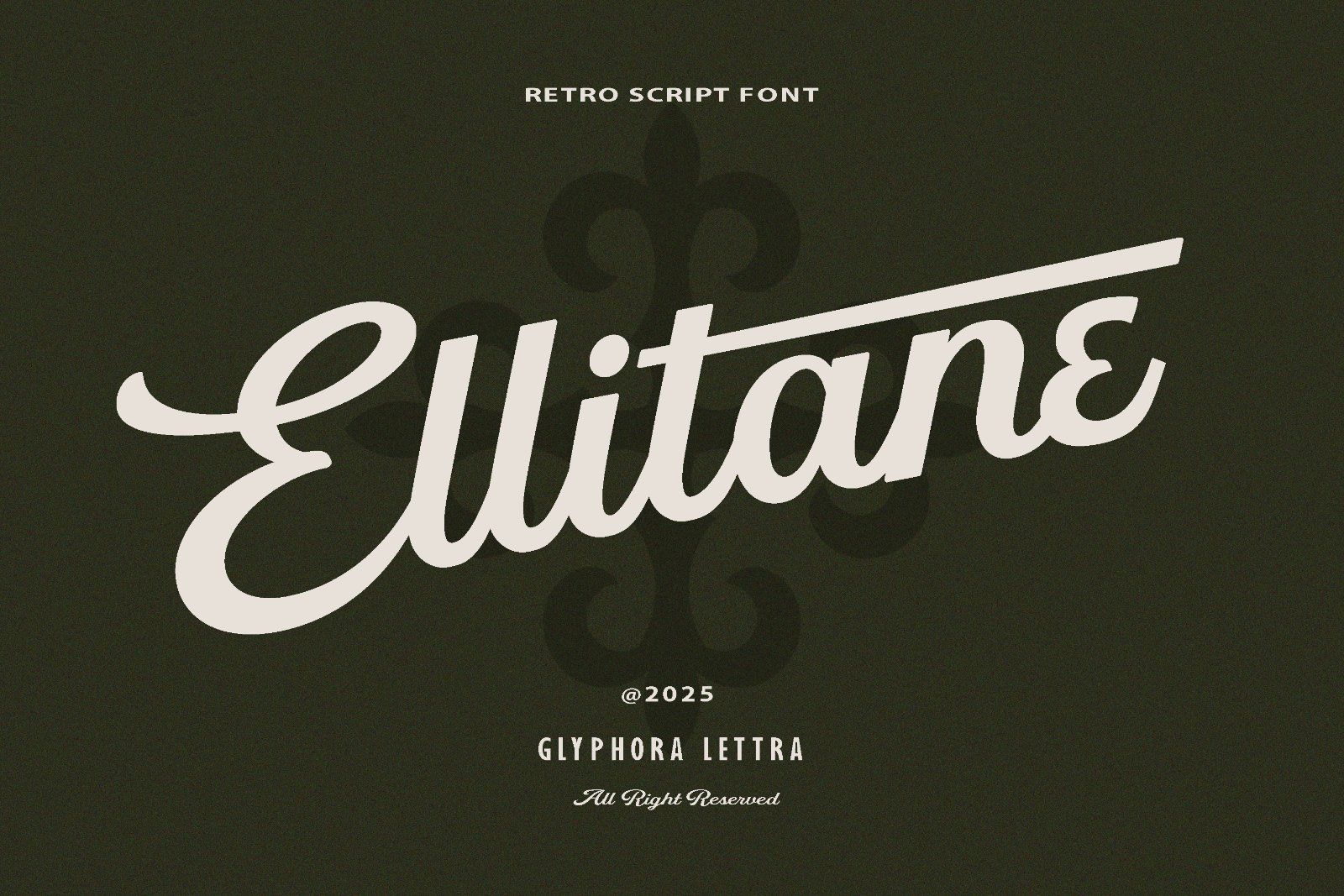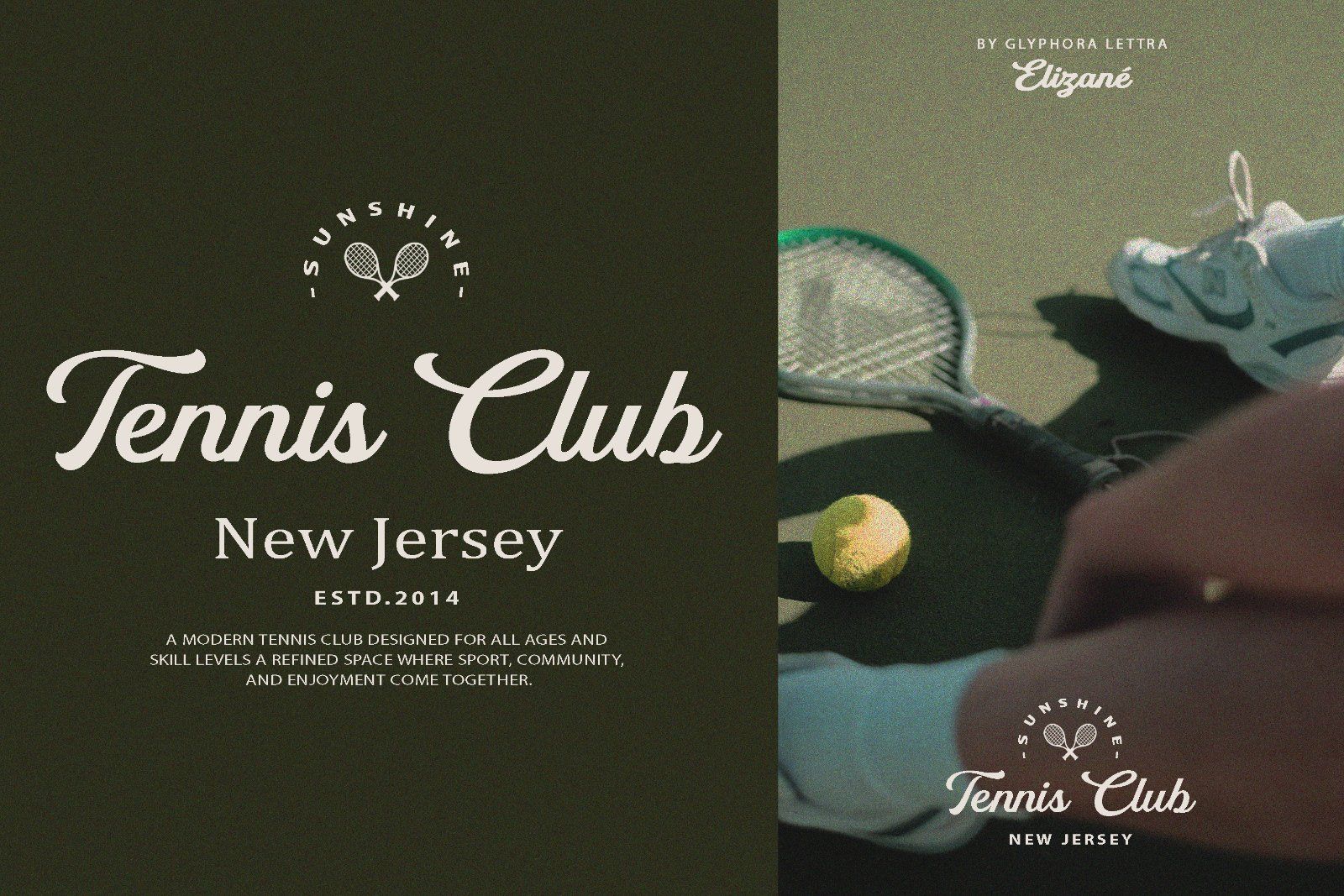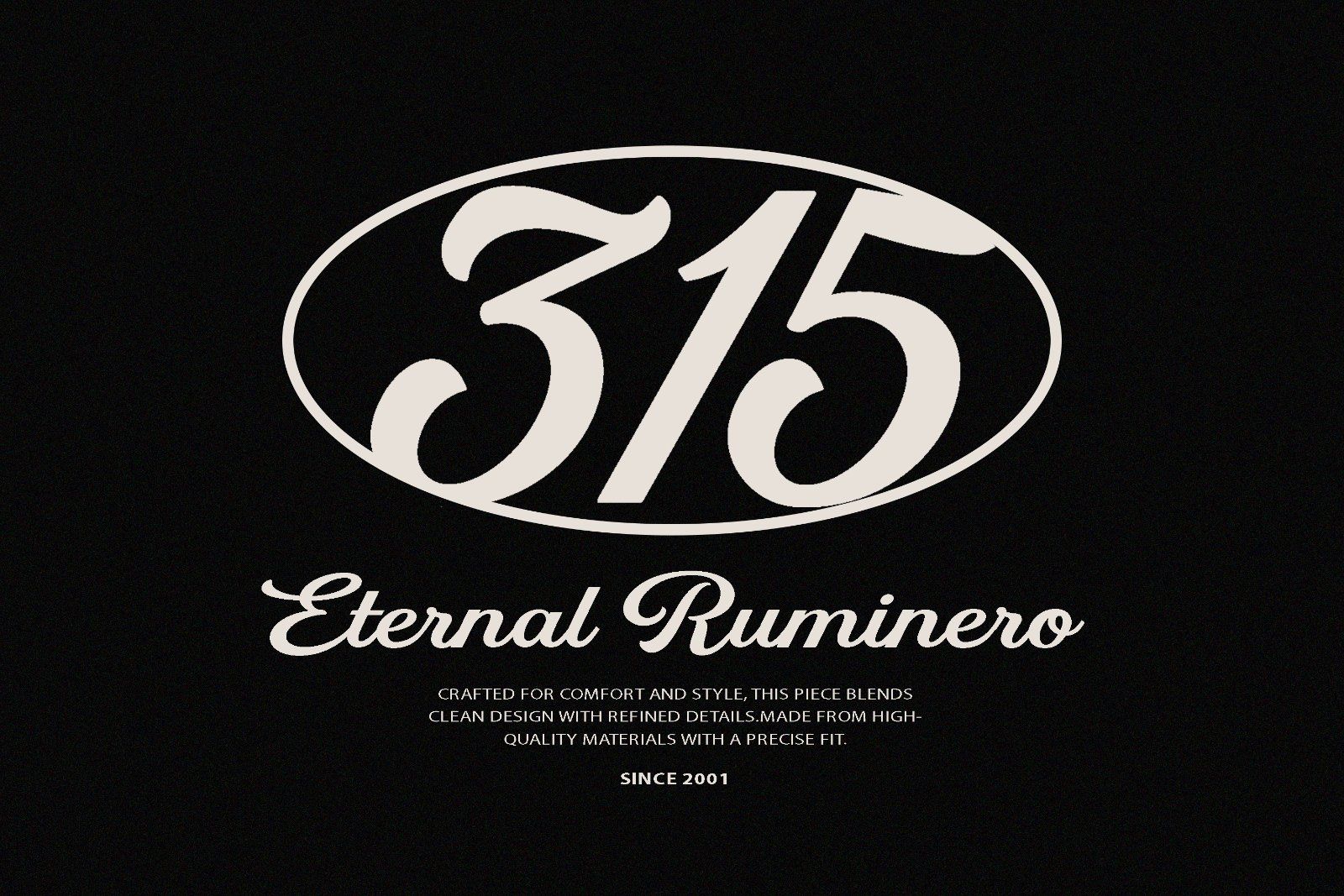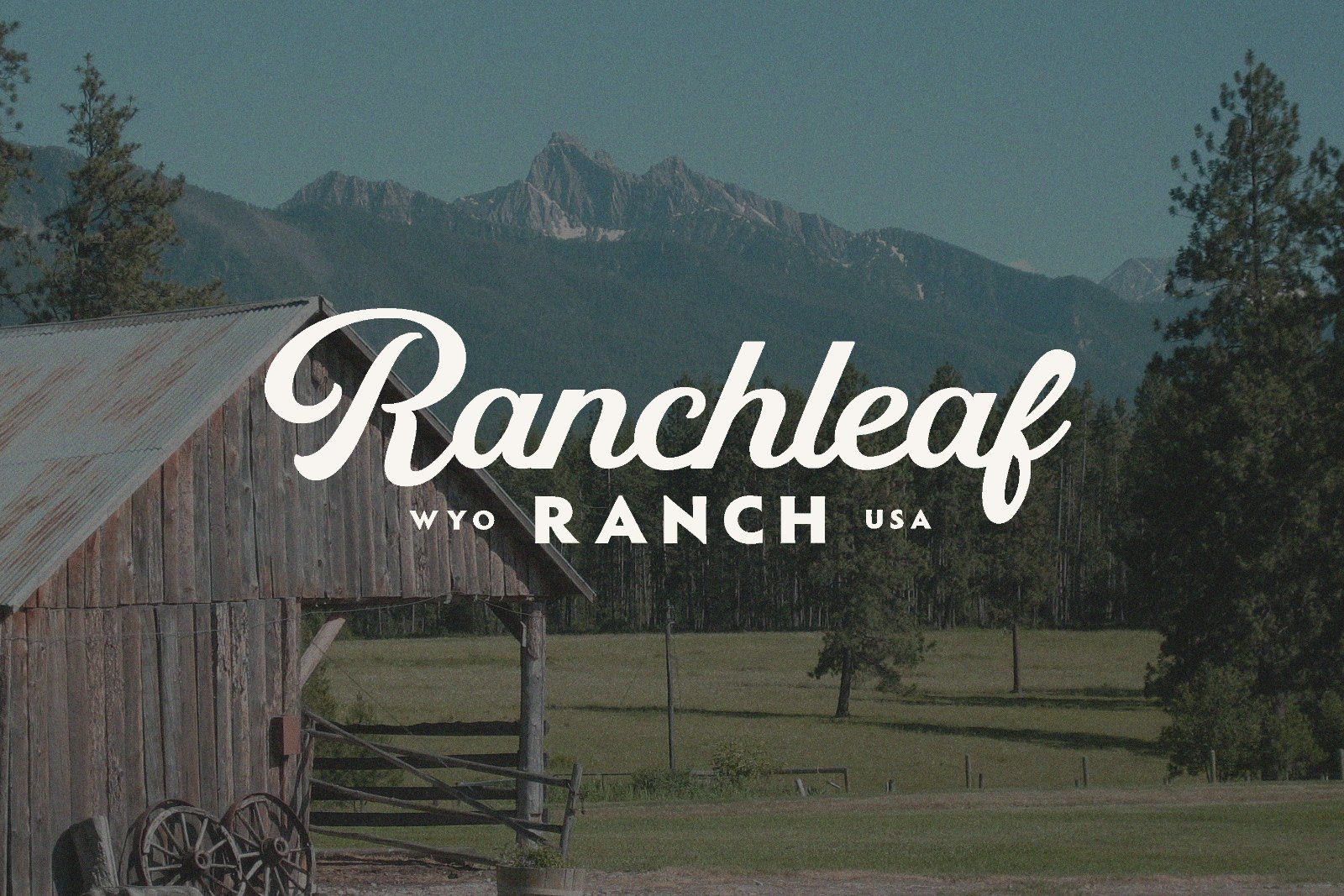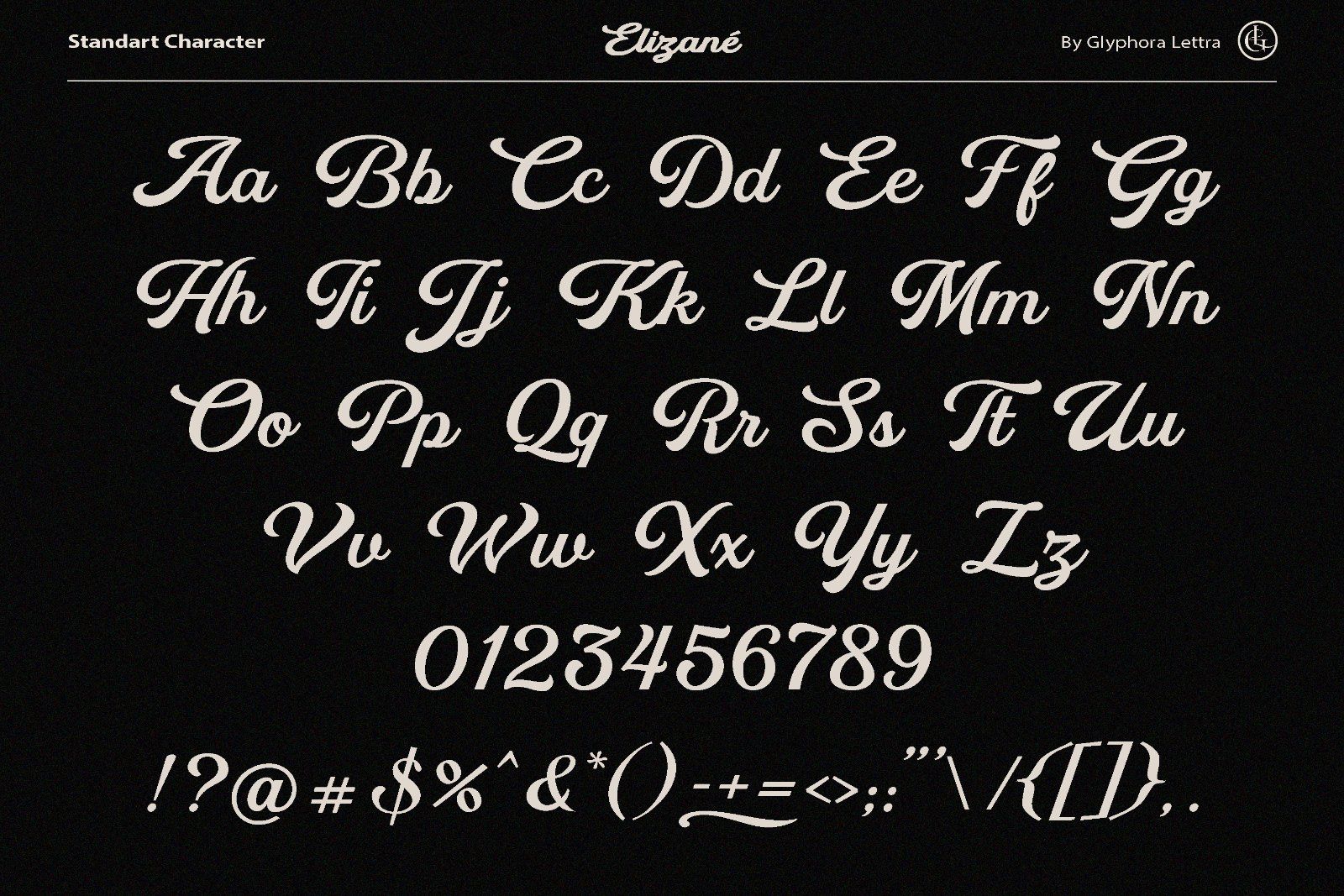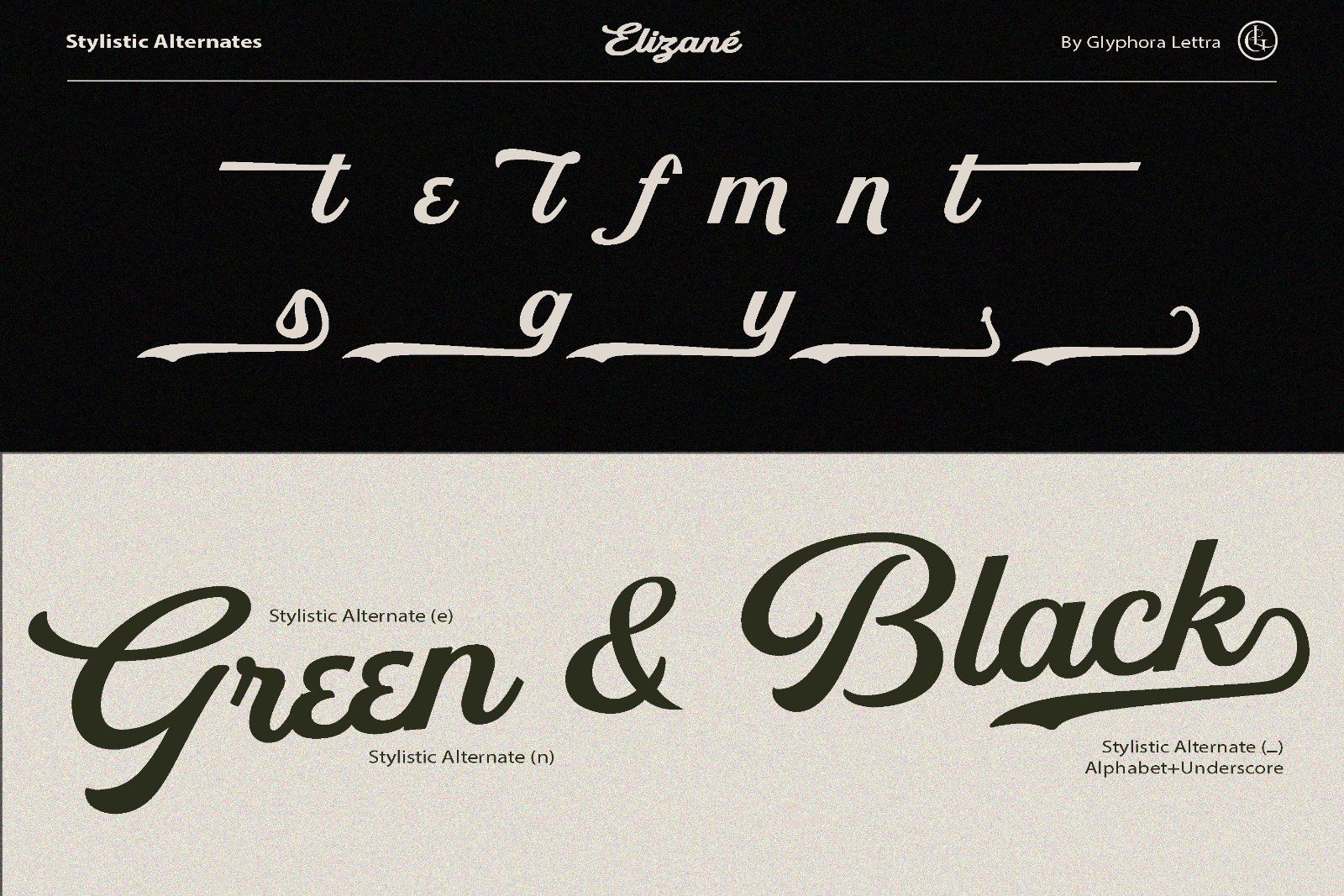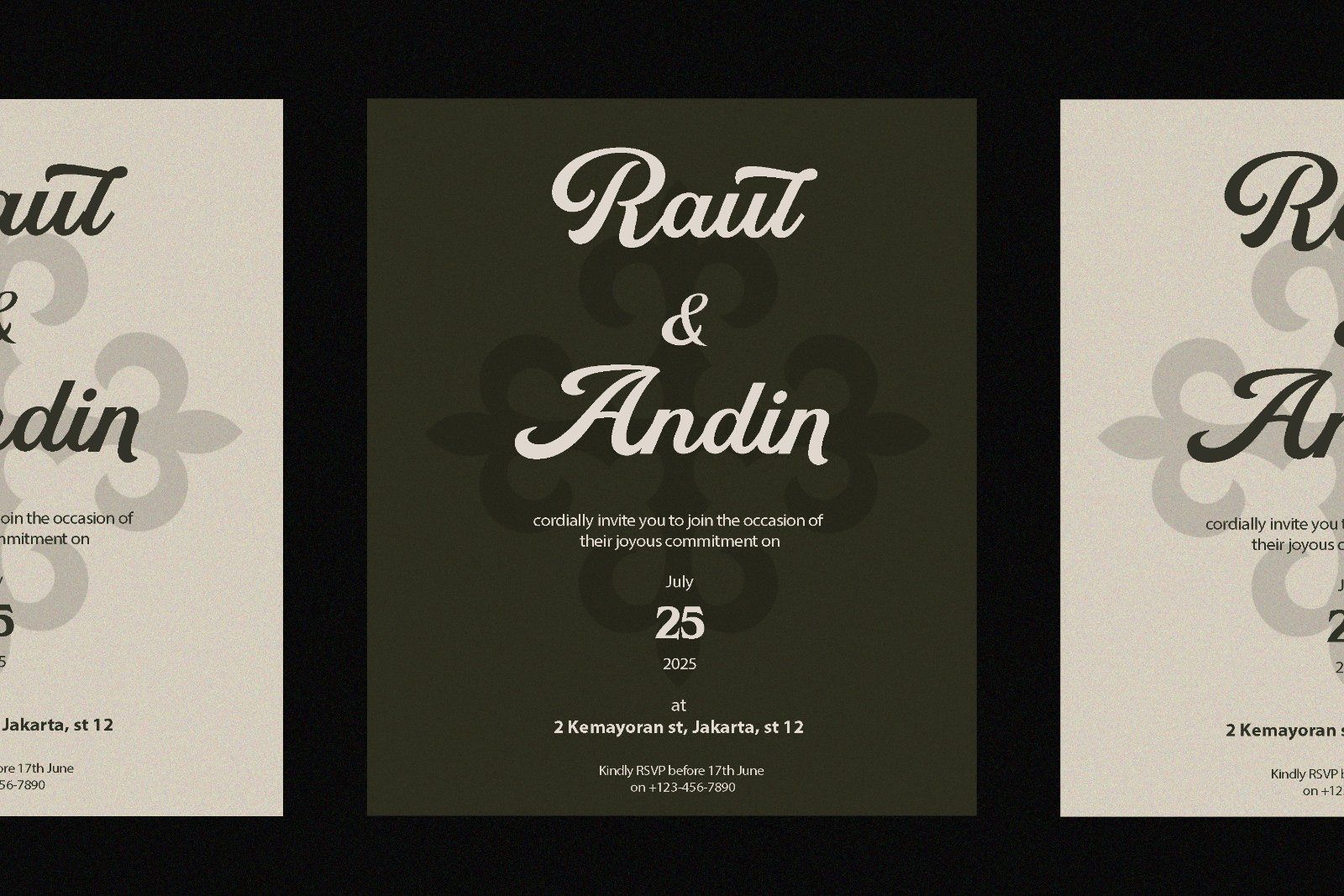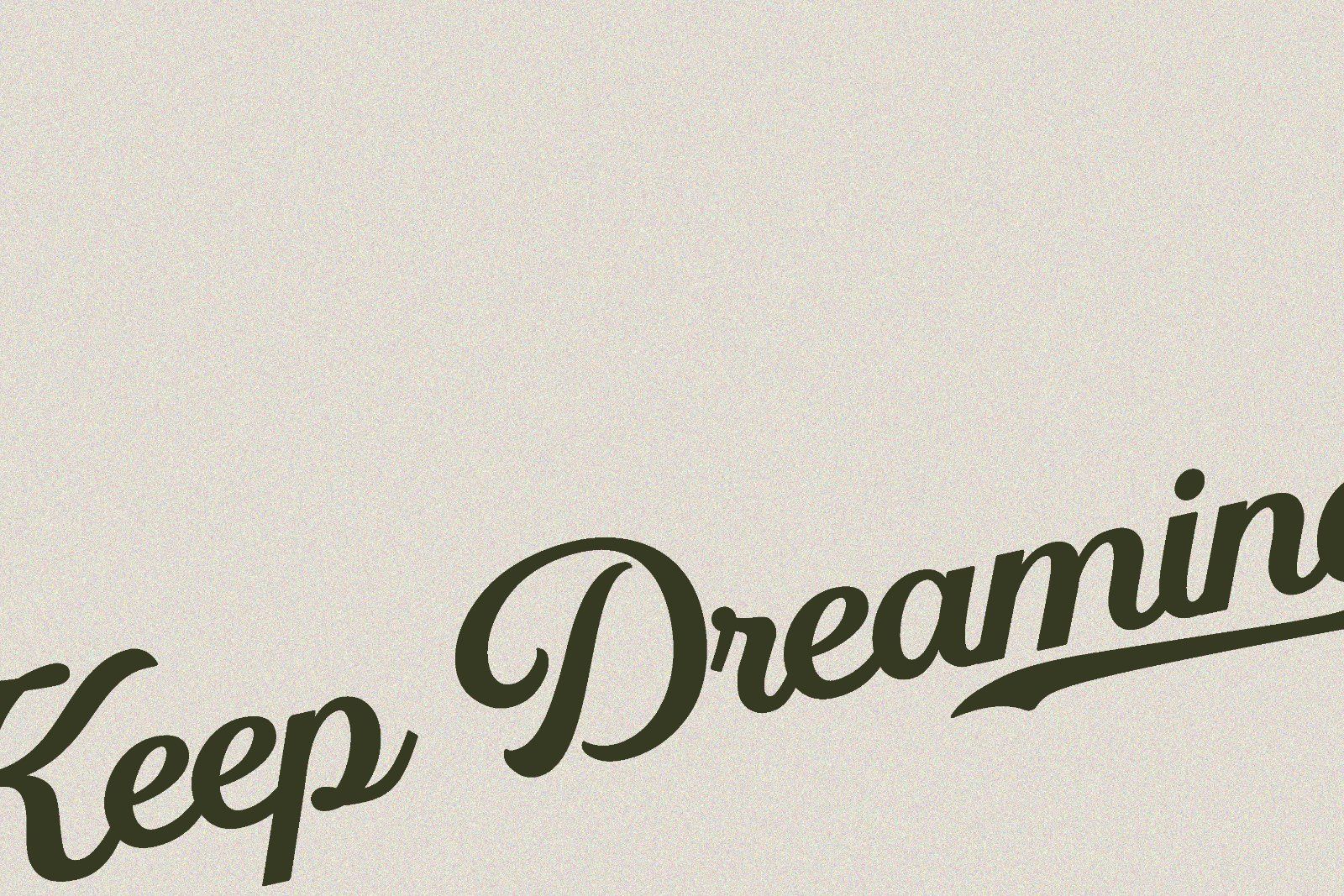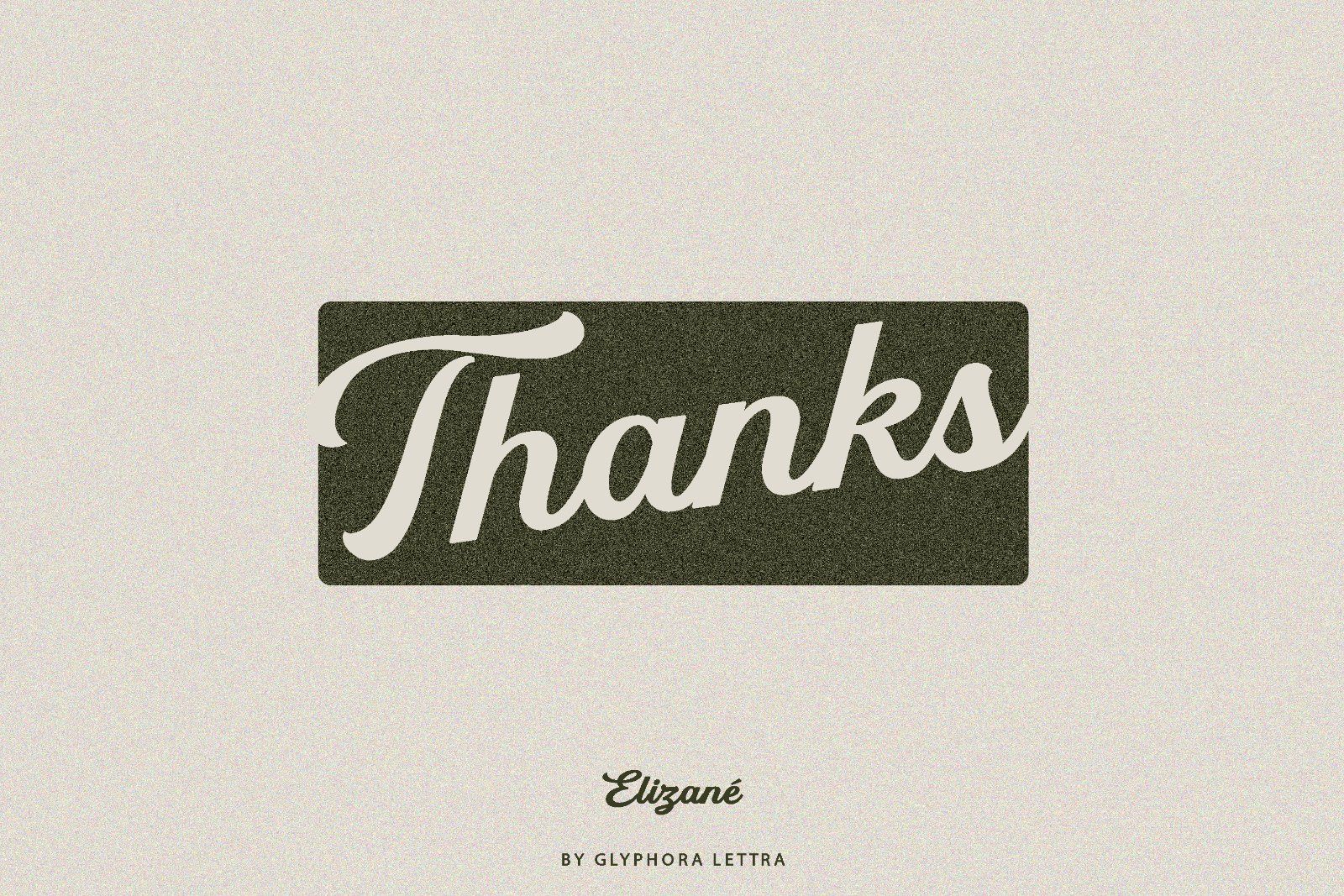
Elitane is a refined retro script font inspired by classic signage, vintage lettering, and timeless elegance. Crafted with smooth curves, confident strokes, and a natural handwritten flow, Elitane delivers a warm nostalgic feel while remaining clean and highly legible for modern design needs.
This font blends old-school charm with contemporary balance, making it versatile for both expressive headlines and premium branding applications.
• Uppercase & lowercase letters
• Stylistic alternates
Ellitane is highly suitable for use in:
• Logos and brand identities (fashion, luxury, cultural, editorial)
• Magazine headlines and album covers
• Posters, artwork, and event branding
• Designs with gothic, classical, historical, or high-end themes
• Premium product packaging